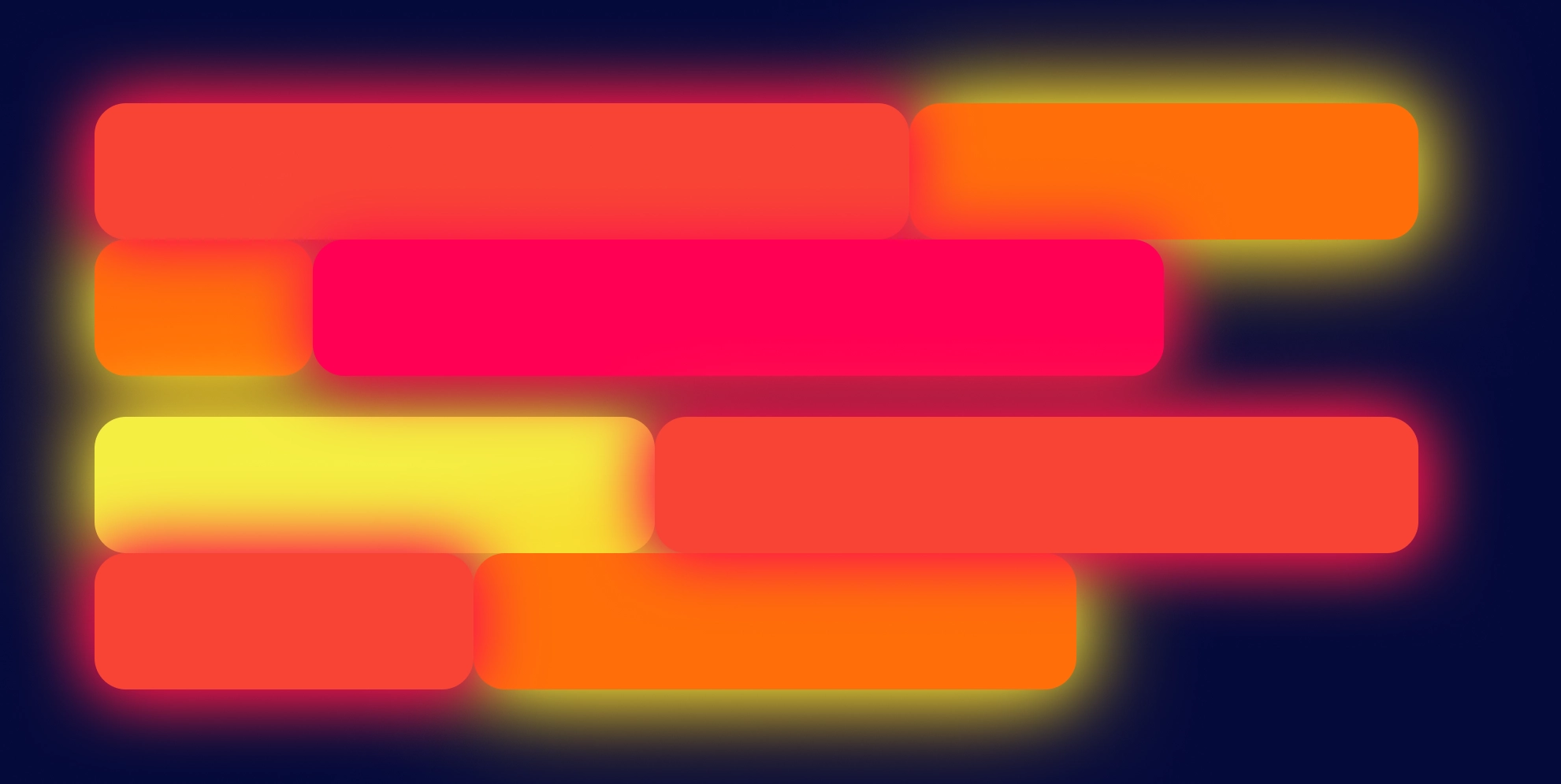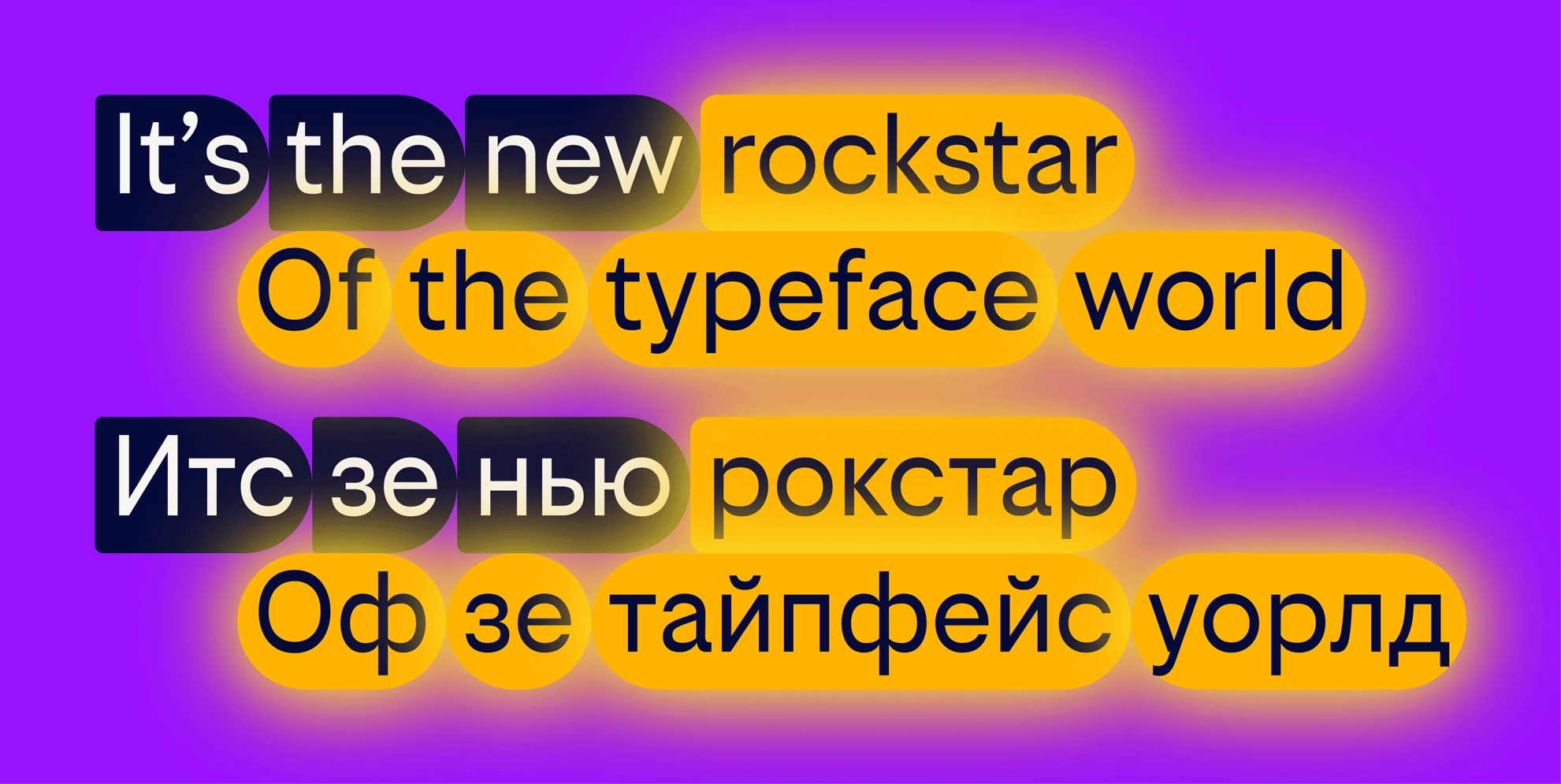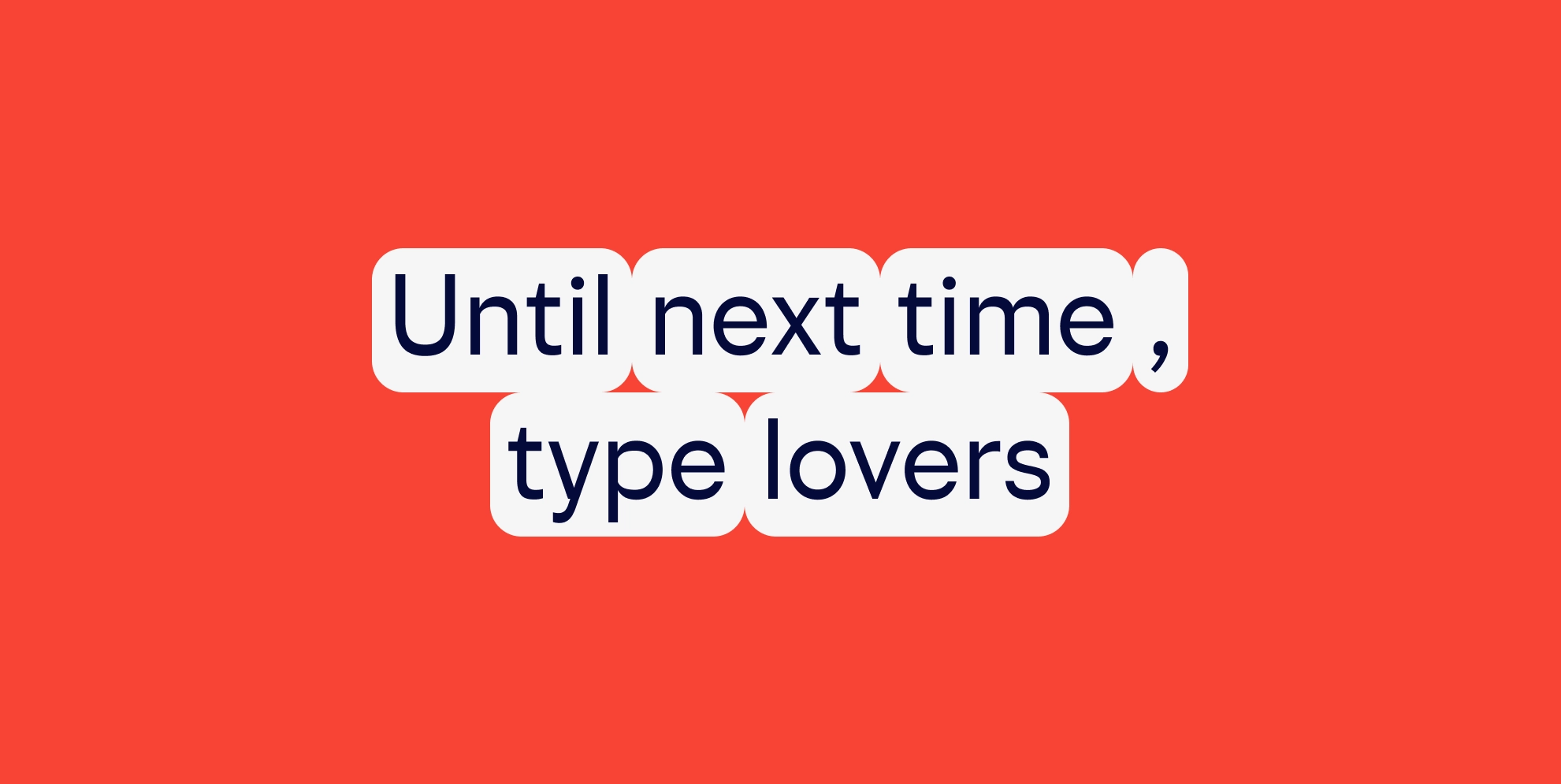
CoFo Sona Promo: The Synergy of AI and Type
At CoFo, we take typeface releases seriously. As much as we care about the quality of each typeface, we also don’t like to repeat ourselves in the way we bring a new typeface to life. This time, we collaborated with Tolya Graschenko and Afterimage. They came up with the idea to create a karaoke promo for our newest typeface, CoFo Sona. The resulting video steps onto the stage in a revolutionary AI-aided karaoke teaser. Afterimage and CoFo invite you to sing along with a classy 50s style video featuring the beauty of Sona.
Maria Doreuli, the founder of CoFo, describes the project:
“We felt that CoFo Sona, being one of the most unique typefaces we’ve designed, deserved a special promo. Something as fresh and unexpected as the typeface itself.”
CoFo Sona, designed by Liza Rasskazova, is a geometric sans serif typeface that marries two contrasting concepts: neutrality and vitality. With its clean, impartial appearance, it aligns with modern geometric sans. Yet, the humanist influence is evident in its proportions and details, injecting a dynamic, energetic feel that sets it apart.
The subtle horizontal stress creates a powerful impression, demonstrating its uniqueness and adaptability. With four weights available for both Latin and Cyrillic alphabets, CoFo Sona transcends language boundaries and can be used across a wide range of applications.
Just like how our AI-driven promo and CoFo Sona teamed up to put on a show, this typeface is ready to team up with you too. Think of it as your typographic partner, always on-hand to help you get your point across just right. Its compatibility with both Latin and Cyrillic alphabets broadens its reach, making it a perfect choice for multicultural brands seeking a unified visual voice across different markets. Whether your goal is to capture attention, evoke emotion, or deliver a clear message, CoFo Sona is ready to be your reliable typographic partner.